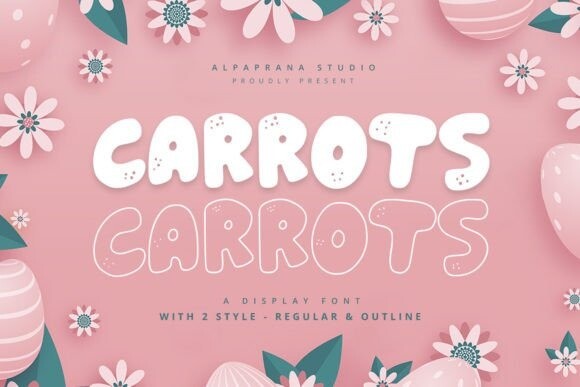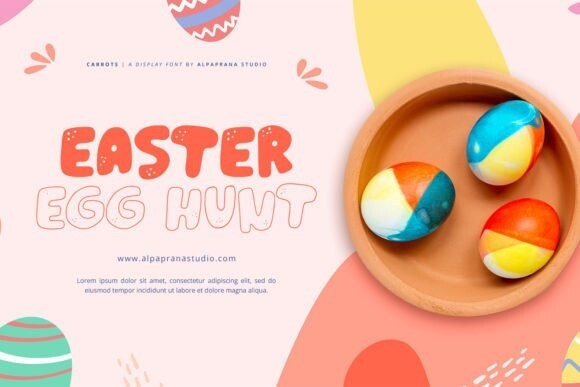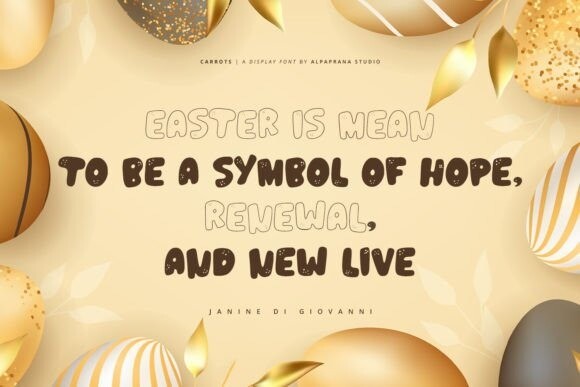
Carrots Font
Carrots is a display font with cute and playful feels. It will be perfectly used for Branding, Logo Design, Lettering, Logotype, Clothing, Poster, magazine, packaging, posters, shopping bags, t-shirts, book covers, photography, special events and other design project.